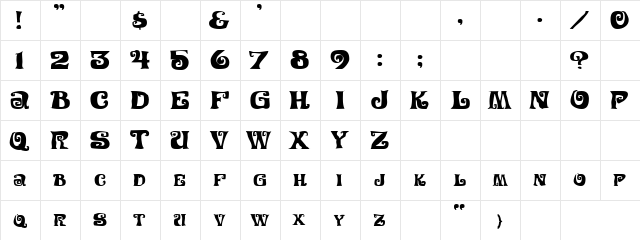
Festival Nights JL Regular
Design Context for Festival Nights JL Typeface
Festival Nights JL is a composed and adaptable typeface that performs quietly and consistently across a wide range of design contexts.